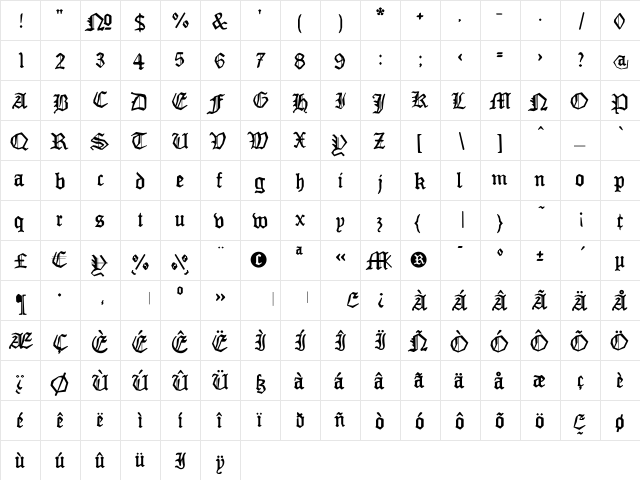
MonAmourFraktur-Broken Regular
Design Context for MonAmourFraktur-Broken Typeface
MonAmourFraktur-Broken draws on the rich tradition of blackletter calligraphy, with dense, angular strokes that evoke medieval manuscripts and old-world craftsmanship.
A natural fit for music packaging, gothic editorial design, and any project that needs historical weight.
Font Pairing: Pair with a clean neutral sans-serif for body copy to let MonAmourFraktur-Broken's character lead without overwhelming the composition.
Pro Tip: Reserve MonAmourFraktur-Broken for display and logo use — pair it with a clean sans-serif for body copy to prevent the composition from feeling oppressive.